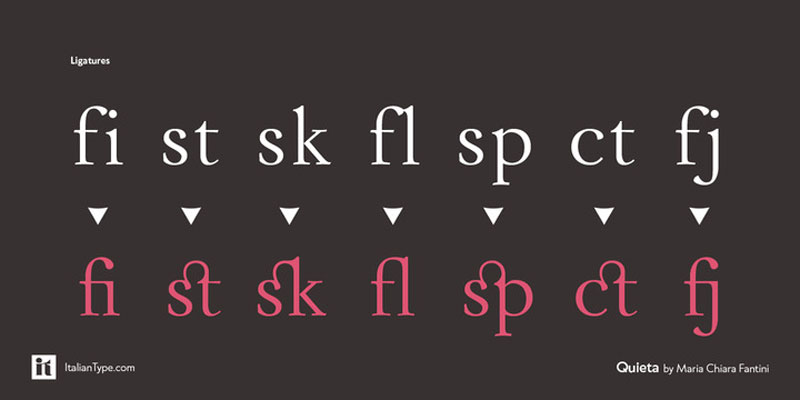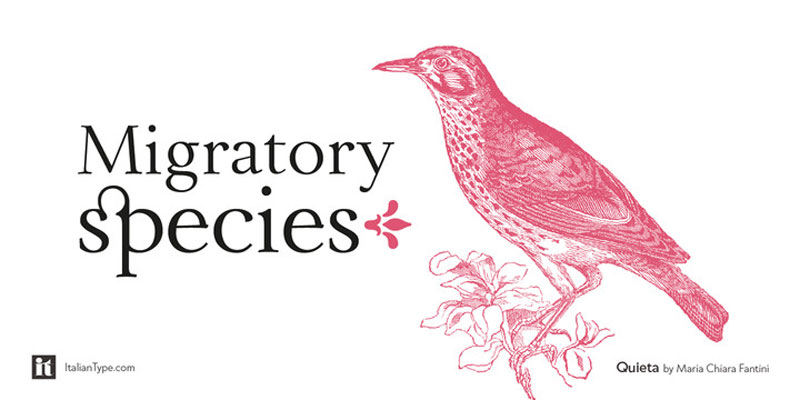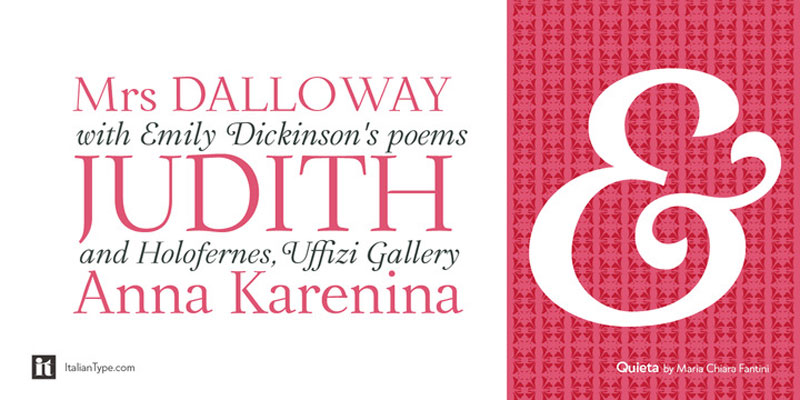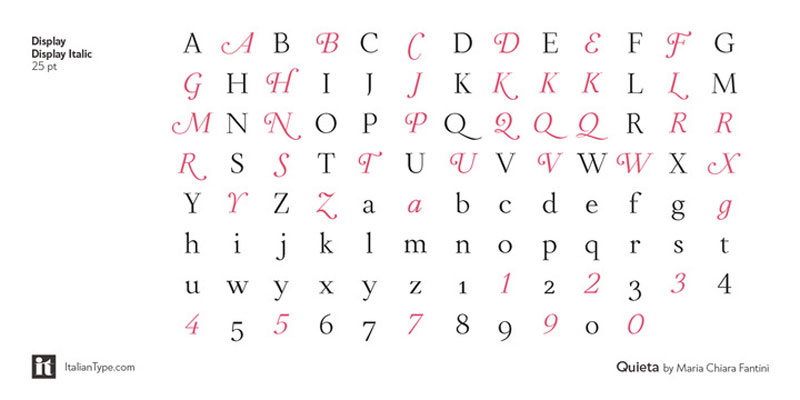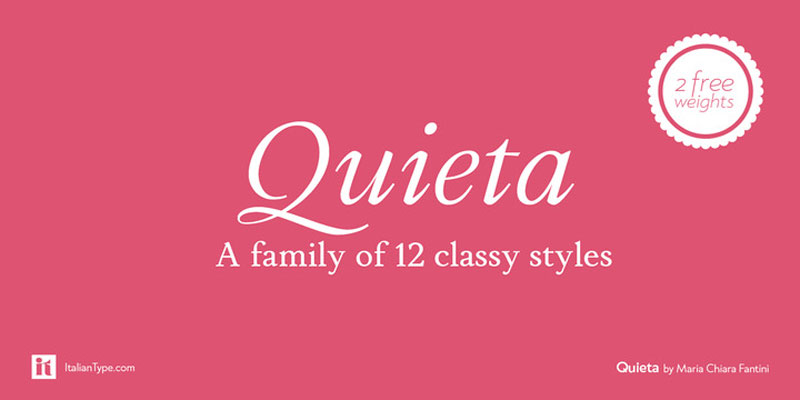
Quieta Font Family
Quieta is a humanist serif typeface inspired by the aesthetics of the Italian Renaissance and by the empowering history of the painter Artemisia Gentileschi, the first woman to be admitted to an Academy of Fine Arts in Italy. The designer, Maria Chiara Fantini, has used sharp flat-nib calligraphic strokes to add a vibrant contemporary vibe to the traditional humanist proportions. Random Recommendation for you Buttey Honey Script Font
Classical details (such as the beak of the “e” and the angled stress of the “o”), are balanced by a modern and readable low-contrast design, developed in a range of six weights with a matching set of true italics. A Display weight, with lighter shapes and stronger contrast, has been developed to excel in logos, headlines, and captions.